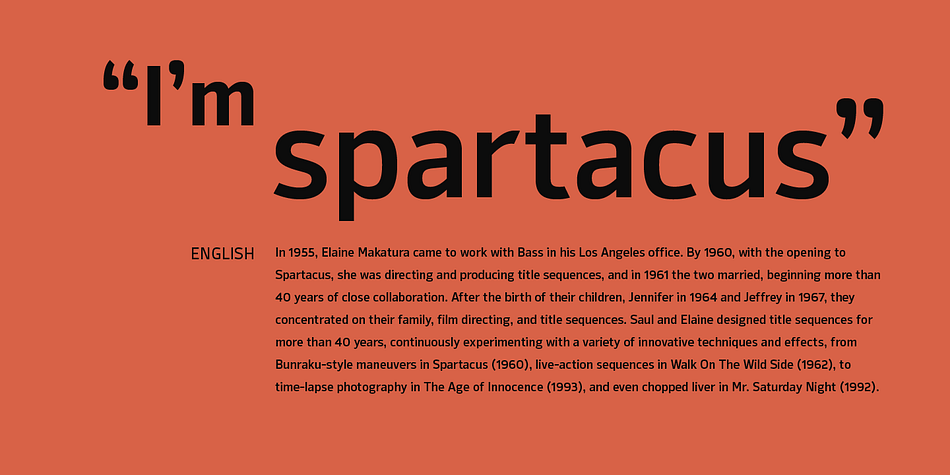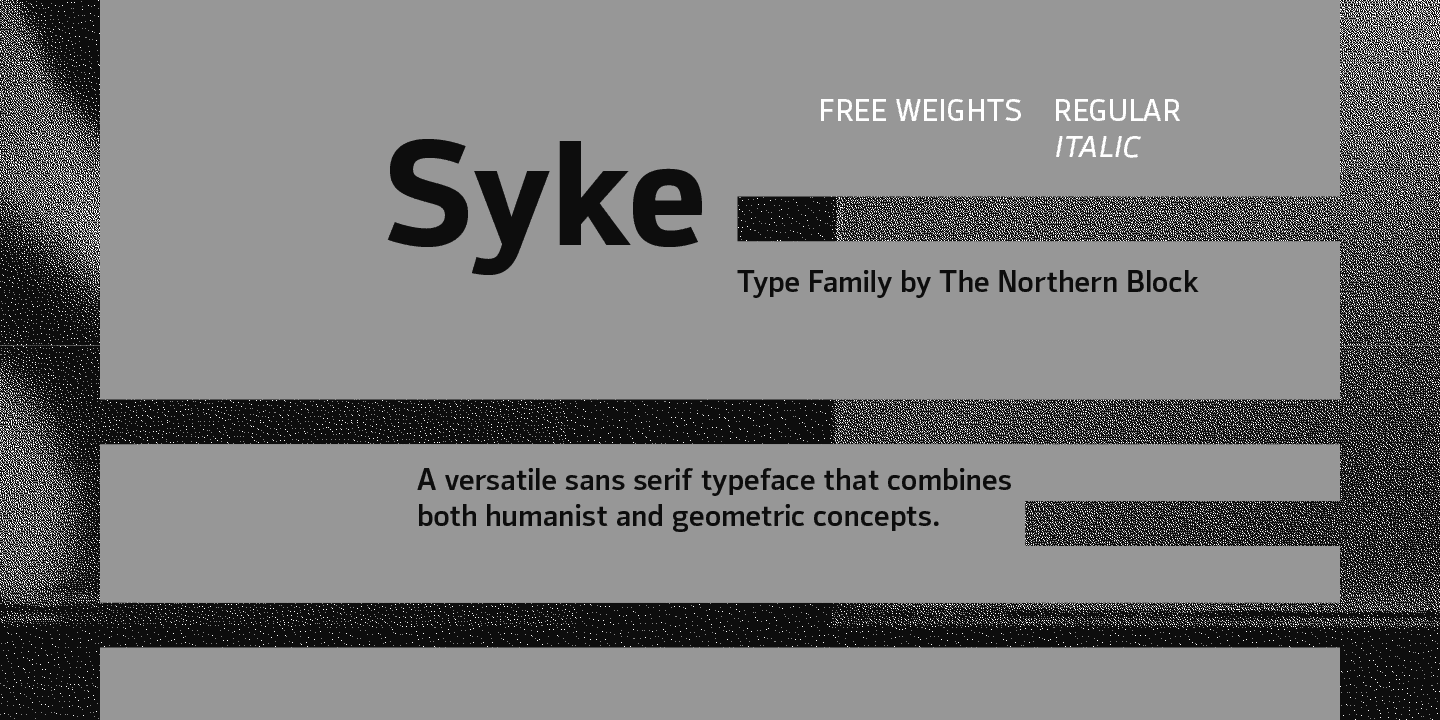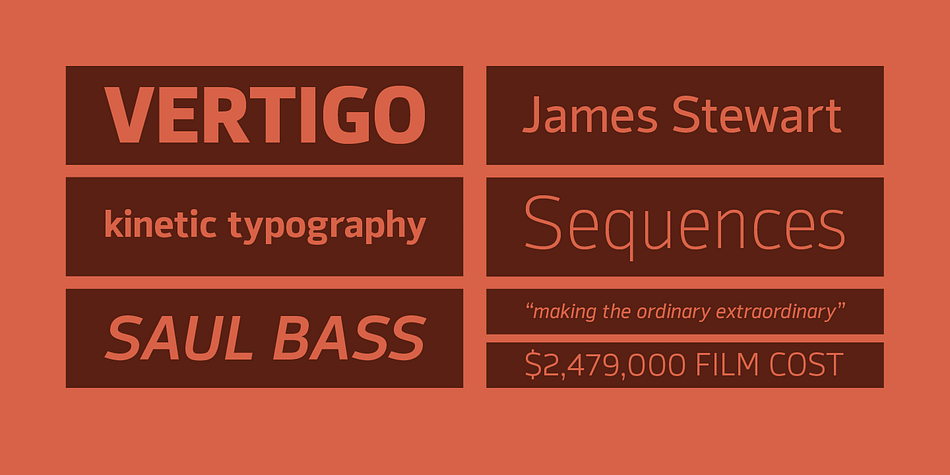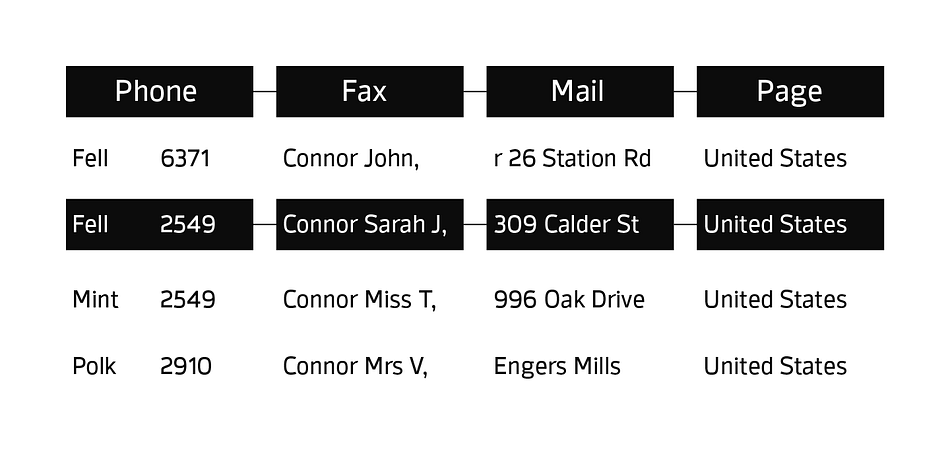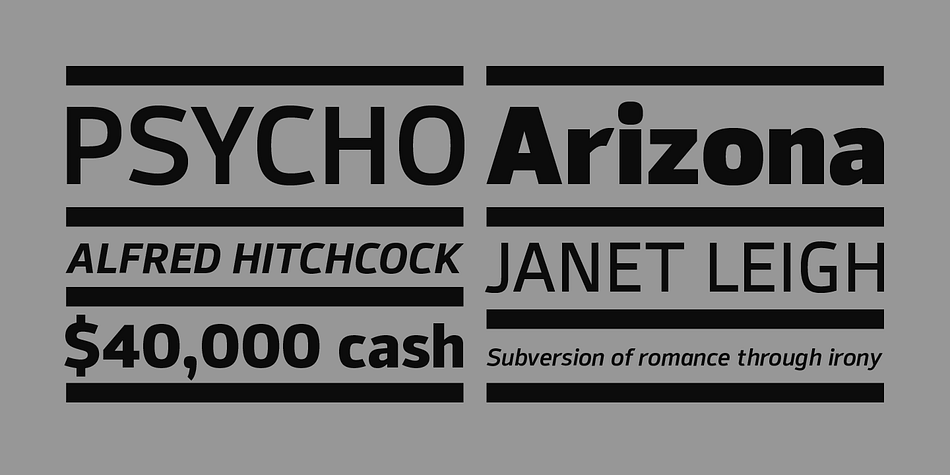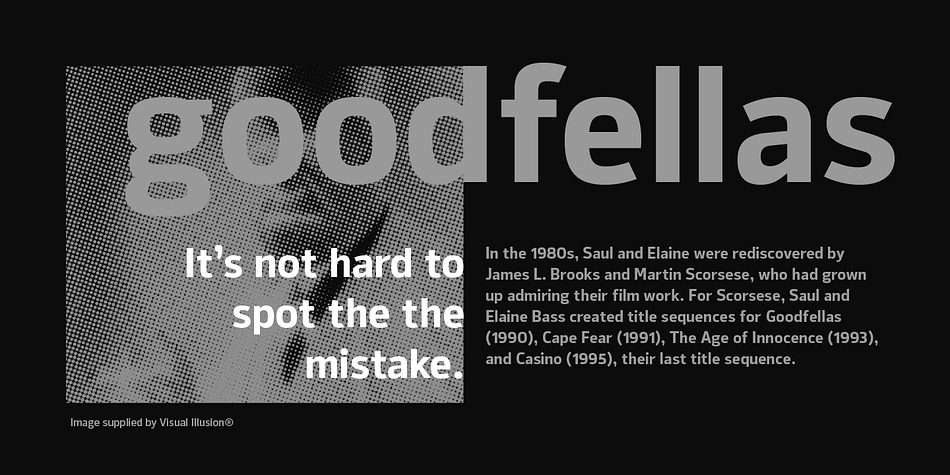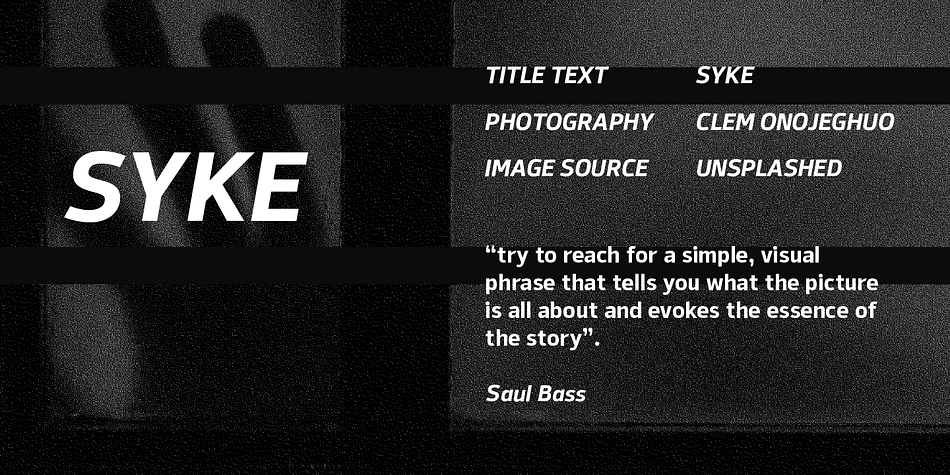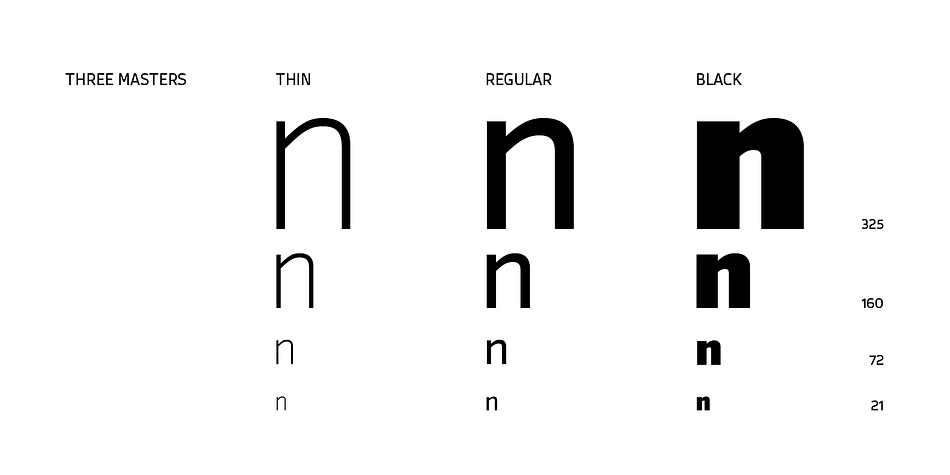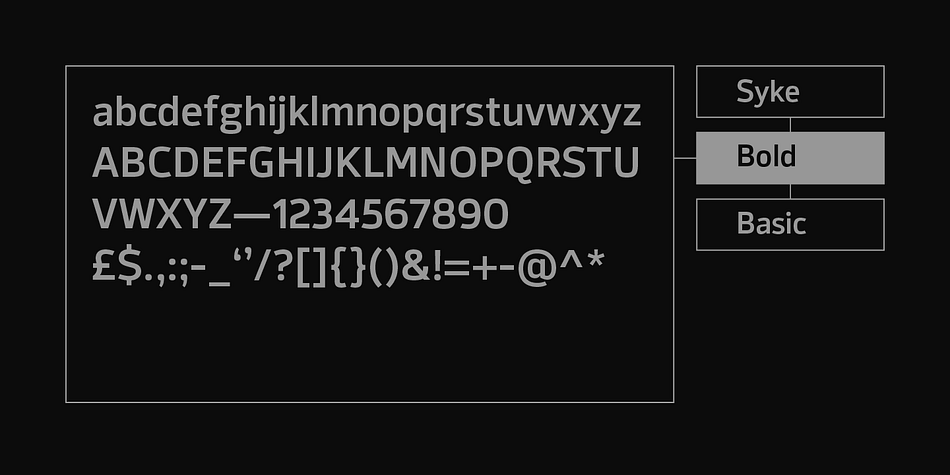
Designed by Jonathan Hill, Syke is a sans serif font family. This typeface has fourteen styles and was published by The Northern Block.
Syke is a versatile, sans serif type family that combines both humanist and geometric concepts. A companion to the monospaced type family Syke Mono, it blends narrowly rounded letter shapes with subtle square detailing, creating a design ideally suited for typographical work in digital applications. Syke has a distinctive character without being overwhelming, making it ideal for film titles, user interfaces and the web. Details include seven weights with true italics and two free weights, over 570 characters, five variations of numerals, ligatures, manually edited kerning and Opentype features.
Foundry | The Northern Block |
Designer | Jonathan Hill |